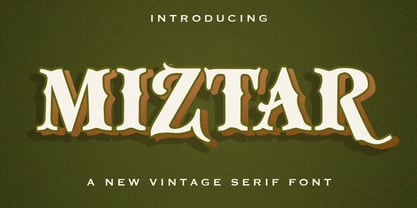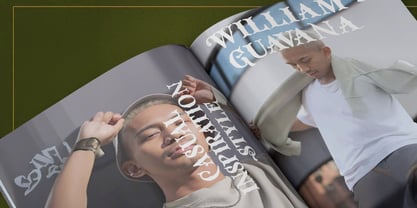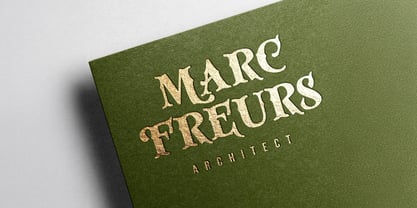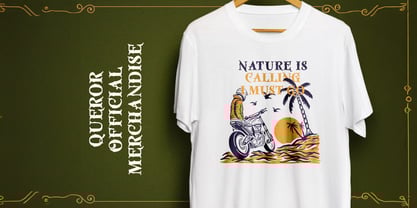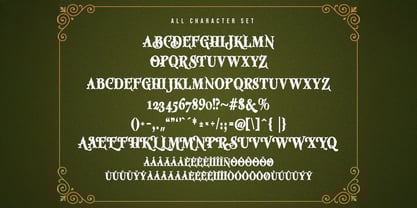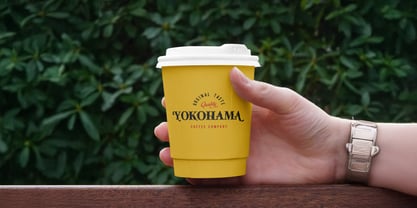
Die Schriftfamilie Miztar wurde von Virgiawan Listanto entworfen und von Stringlabs Creative Studio veröffentlicht. Miztar enthält 1 Stile.
Miztar is a Victorian style font that exudes classic elegance and ornamental beauty. Inspired by the bold lettering of the 19th century, Miztar features intricate curves, strong contrasts, and decorative flair perfect for designs that need a timeless and luxurious touch. Ideal for logos, packaging, signage, and themed designs, Miztar adds royal sophistication and antique character to your creative projects.